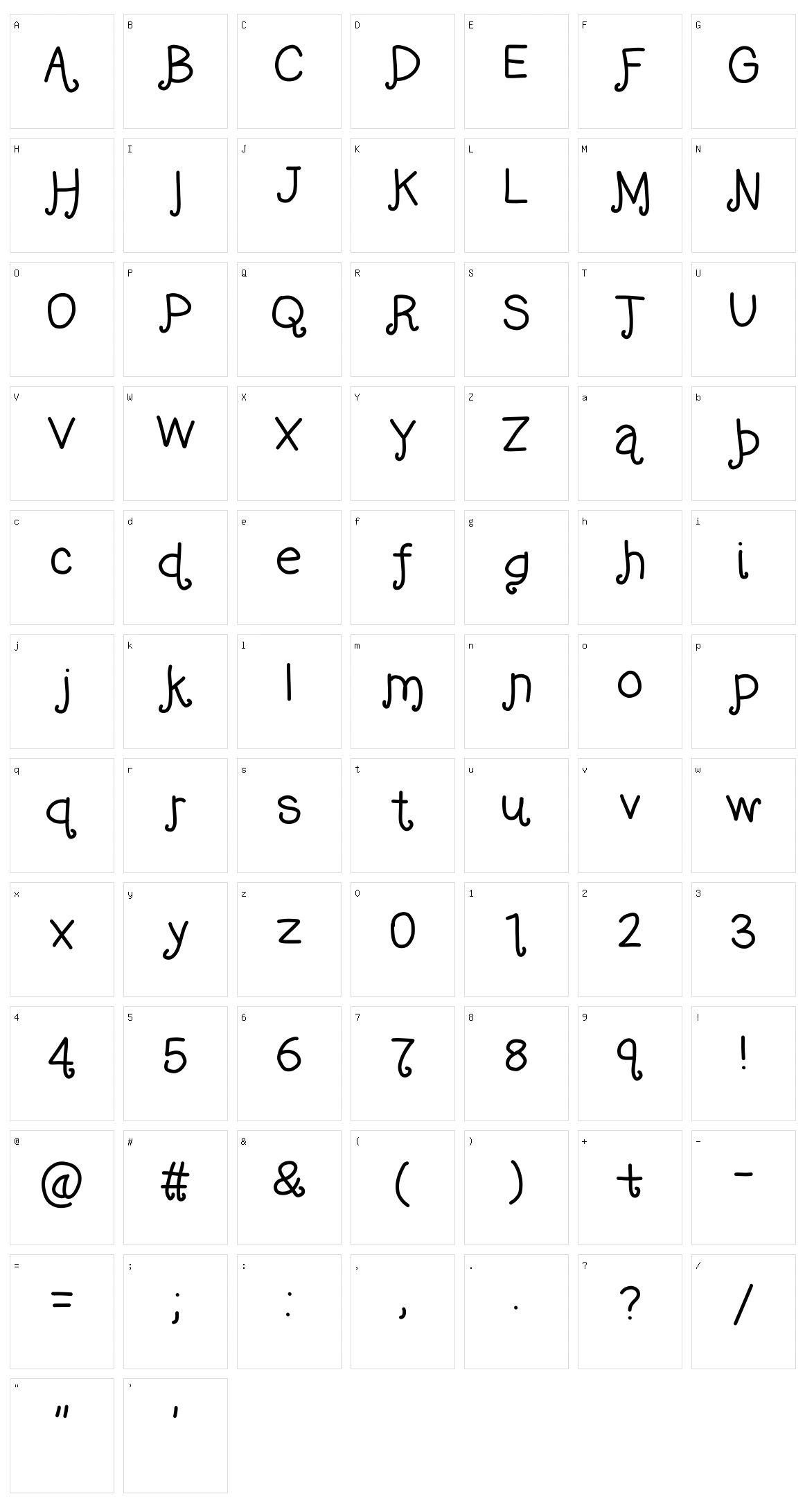
The free font Ralph is carefully designed by Geronimo Font Studios, showcasing a thoughtful balance of creativity and usability and falls under the Script font style. When you download the ZIP file, it contains only 14.83 KB of font files, making it lightweight and quick to download. Please review the license details below to understand permitted usage and distribution rights. If license information is not available, we recommend using this font for personal projects only or contacting the author directly for commercial usage permissions.